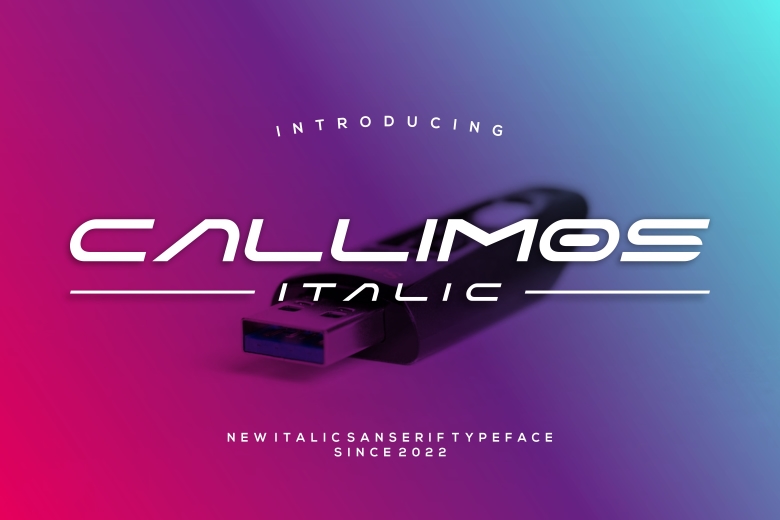
Callimos Italic Font
Callimos Italic is futuristic Sci-fi font for Modern technology and typographic needs where the stand out letters are required. Its style makes up for the designs by giving them a futuristic look hence suitable for Cryptocurrency, Technology, Film, and Sci-Fi. Solely designed to lend a contemporary look and put emphasis on headlines, this font is created to infused a cutting-edge look into your projects and deliver the key message clearly.
Callimos Italic Sans Serif Font